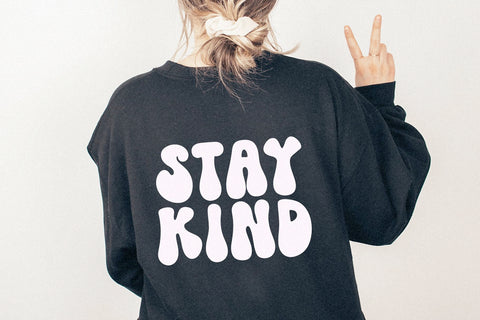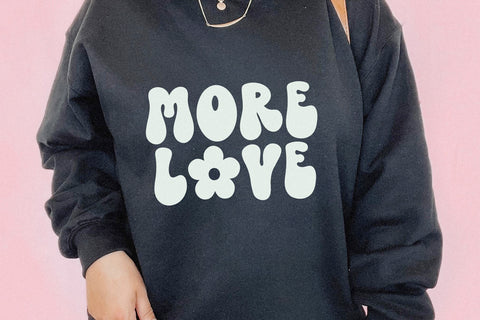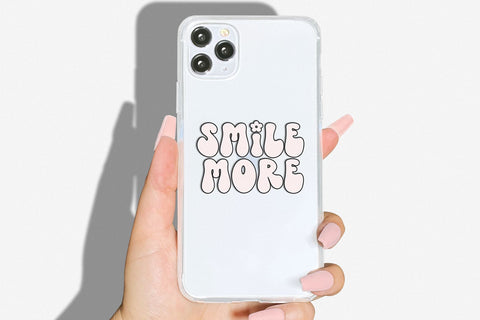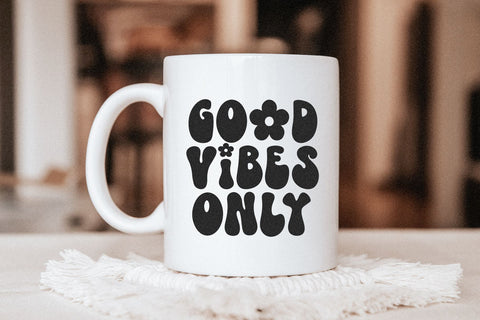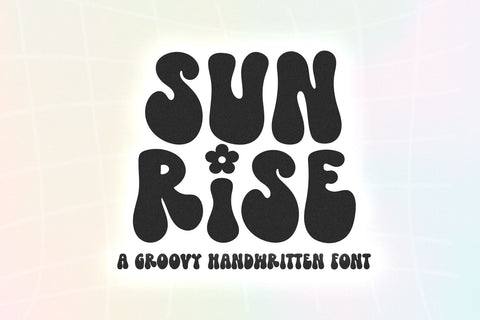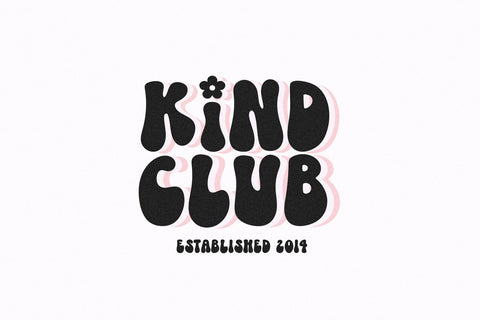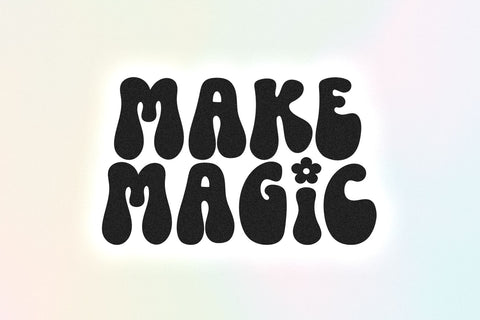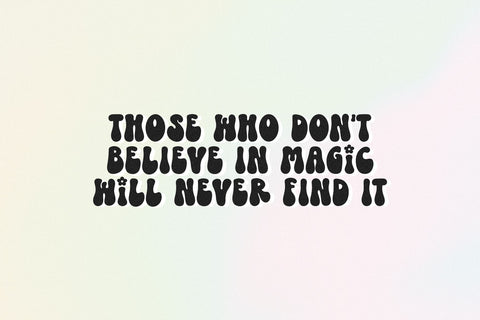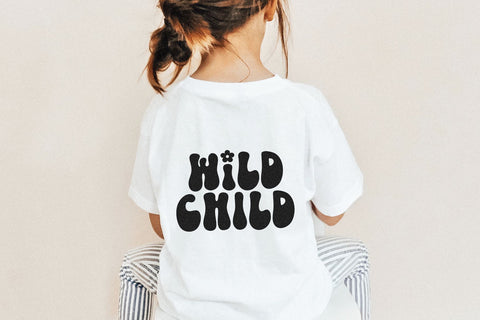
Sunrise - Groovy Retro Font
Sunrise is a hand-drawn font with big groovy letters!
This font is perfect for creating retro shirt designs, stickers, phone cases, vinyl designs, instagram quotes, branding, logos, procreate and more!